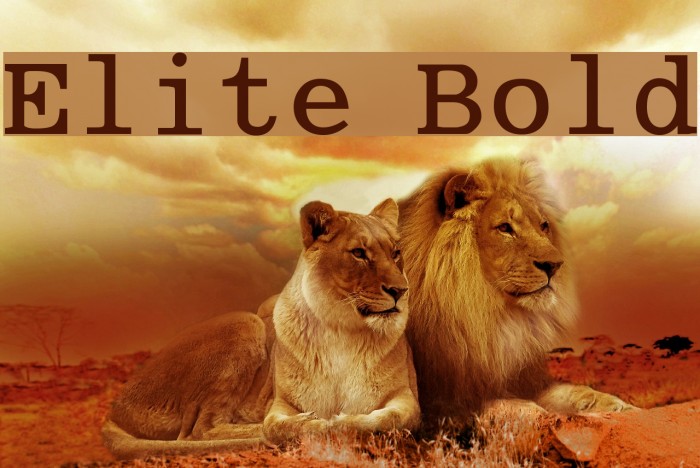
Elite Bold Font
This font features a bold, slab serif style with strong, rectangular serifs that provide a sturdy and authoritative appearance. The characters are well-defined with a consistent stroke width, giving it a robust and impactful look. The uppercase letters are tall and commanding, while the lowercase letters maintain a balanced proportion, ensuring readability. The numerals are clear and distinct, making them suitable for various applications. Special characters are included, enhancing its versatility. Overall, this font exudes a classic yet modern feel, making it ideal for projects that require a bold statement.
A bold, slab serif font with strong, rectangular serifs and a robust appearance.
- Proposed Projects: Ideal for headlines, posters, branding, and any project requiring a bold and authoritative typeface.
- Category: Slab Serif
- Overall Style: Classic